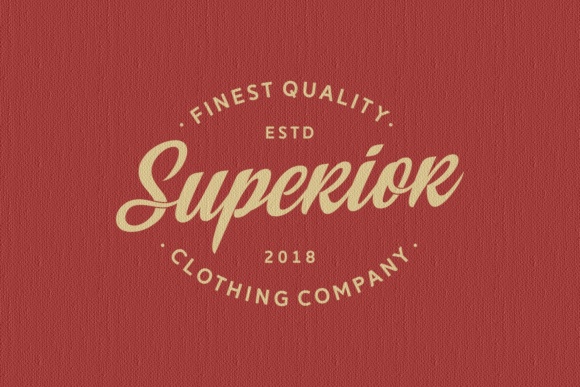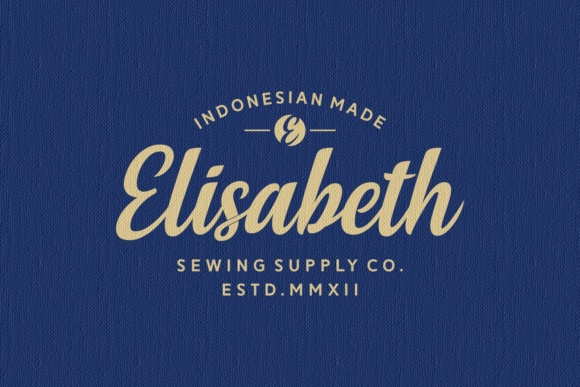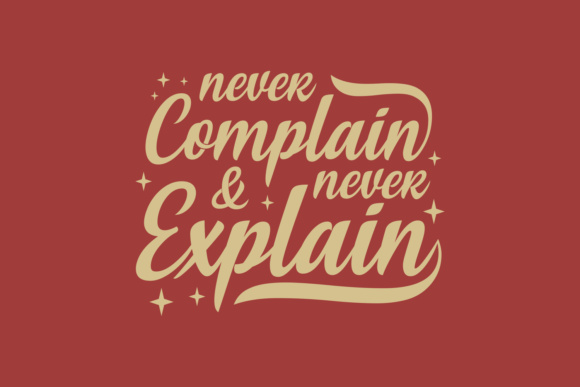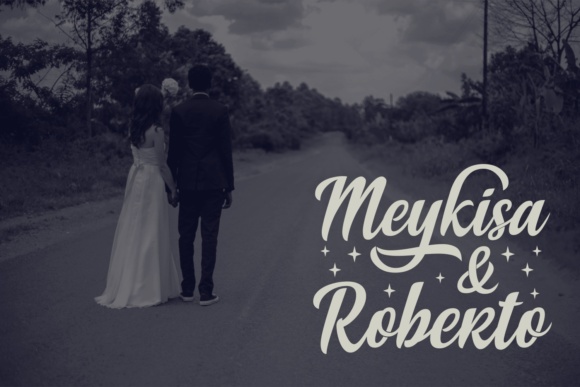
Soe Font
About Soe Font
Soe is a gorgeous logotype font, ideal for use in displays and to brand your designs. This font works well in a wide range of projects, and adds a vintage touch to your work.